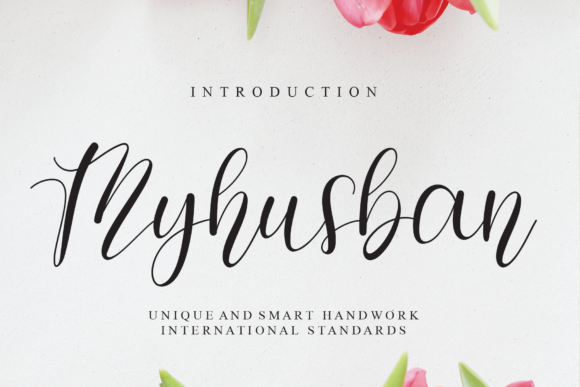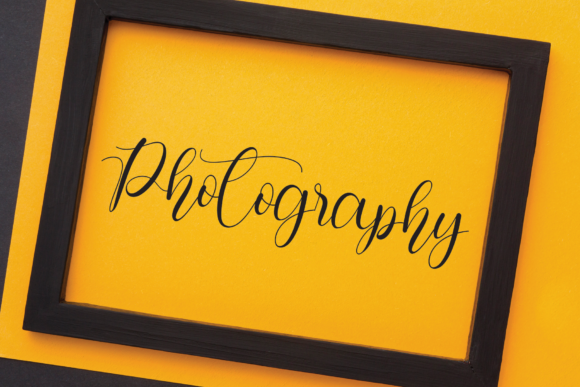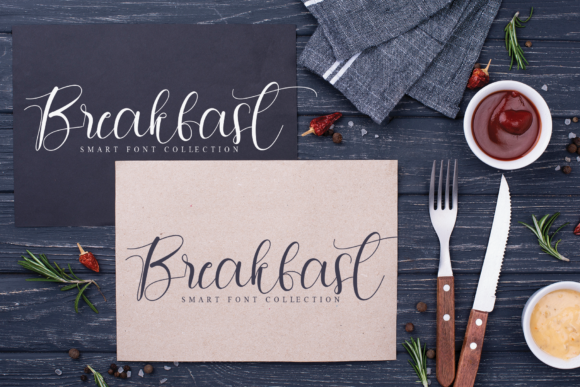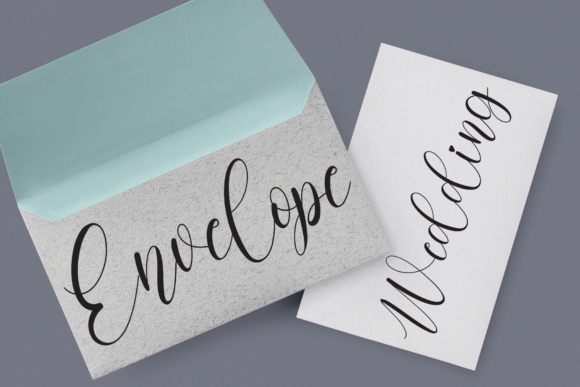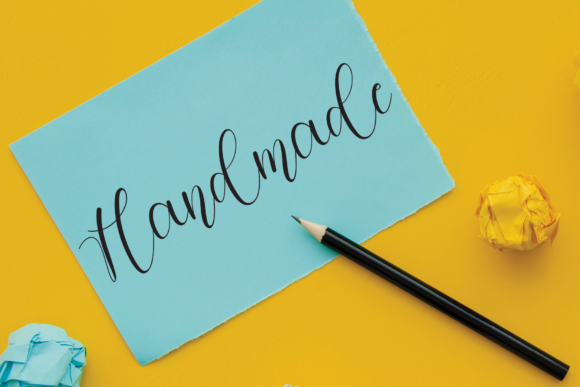
Myhusban Font
About Myhusban Font
Myhusban is a lovely handwritten font that seems naturally attractive and cursive. With nicely shaped letters and a sleek style, this typeface is sure to make your creations seem even more beautiful!